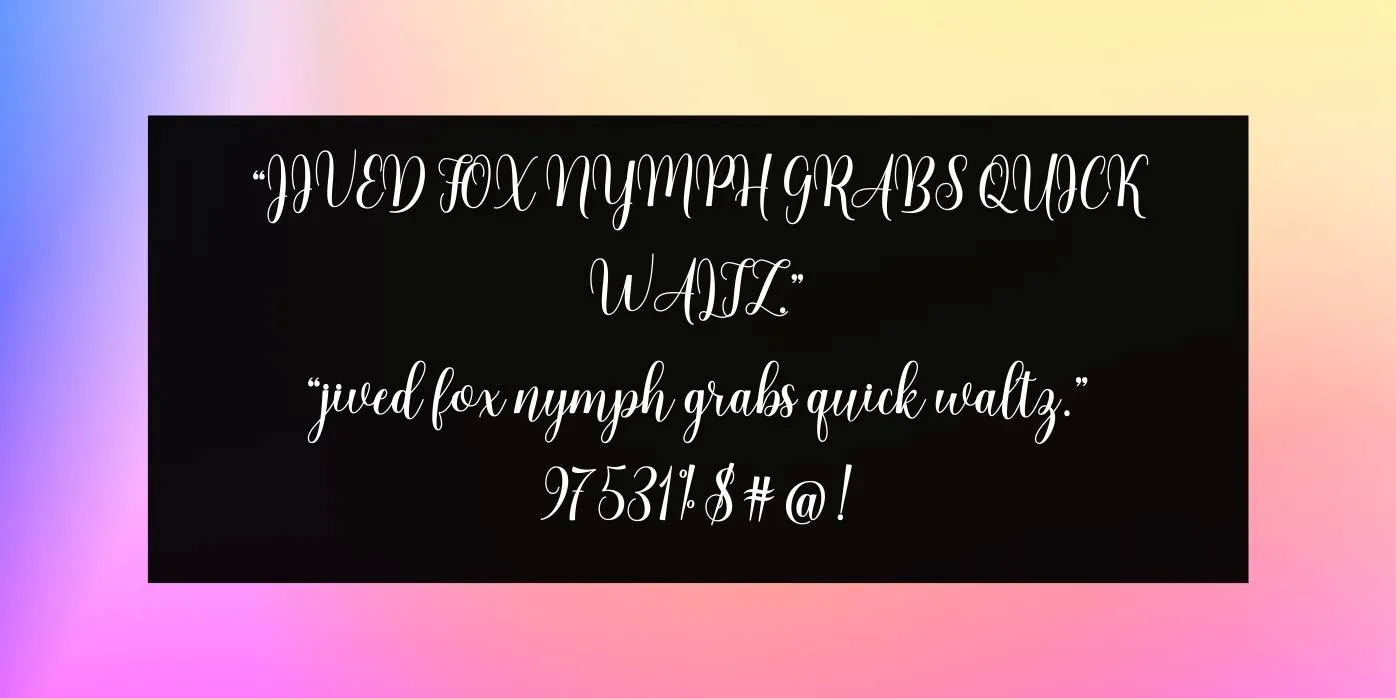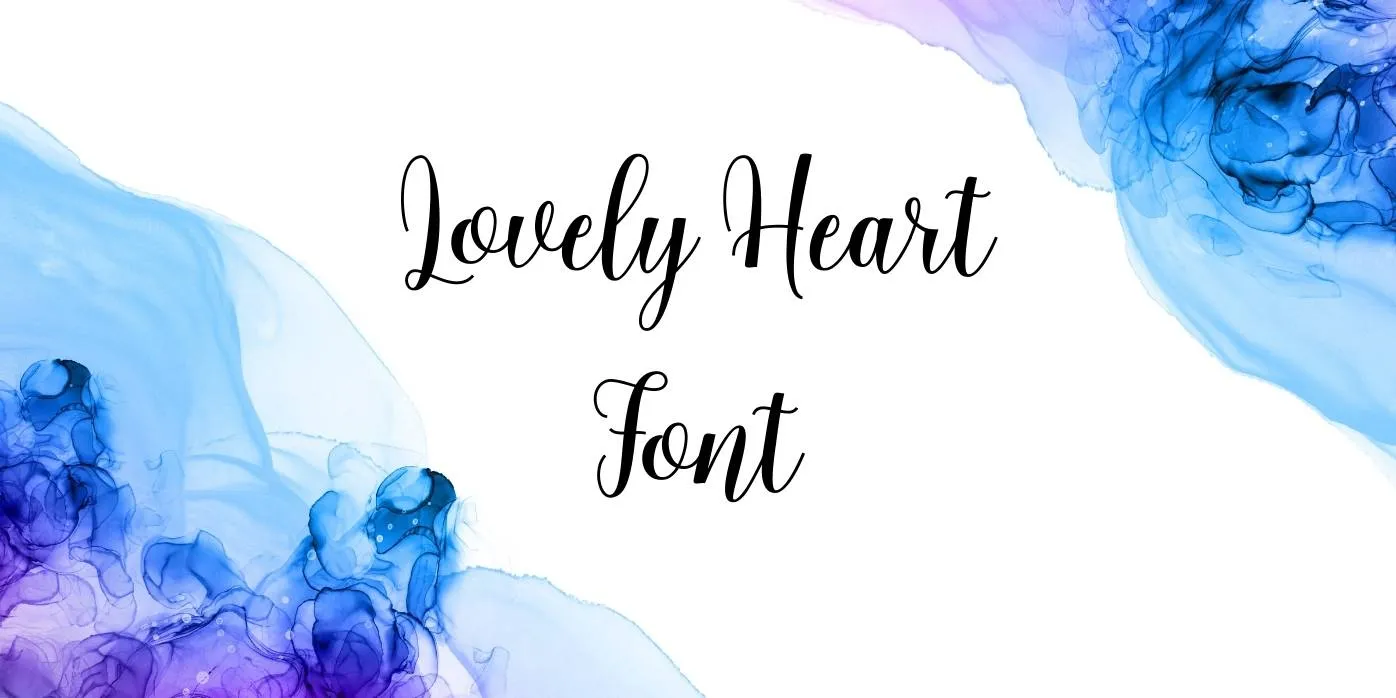
Lovely Heart Font
Lovely Heart font is a very stylish and attractive font. It was designed by Fachran heit. Its look is modern and classy with the element romantic style of writing. It has a look of joining letters with each other in a very versatile look.
This font contains small letters, capital letters, numbers, symbols, and punctuation. It contains 217 characters and 184 glyphs. The weight of the font is normal and the width is medium(normal). Basic languages supported by this font are Latin and Symbols.